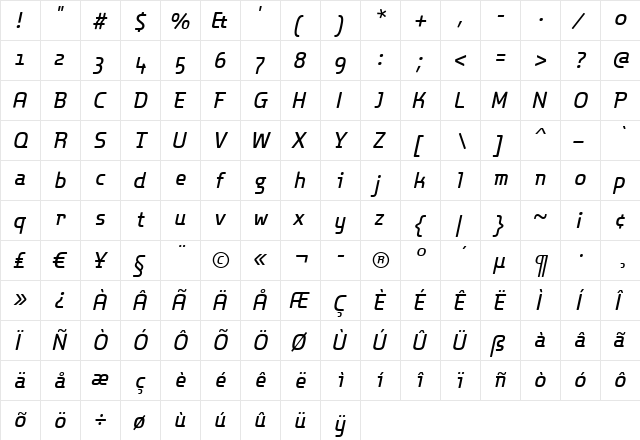
Dieselis-OneOblique Regular
Design Context for Dieselis-OneOblique Typeface
Dieselis-OneOblique takes a measured approach to typography — its balanced proportions and neutral character make it a reliable workhorse for both digital and print work. Its italic angle brings a sense of urgency and motion to the letterforms.
Pro Tip: Try Dieselis-OneOblique for annotation and caption copy alongside an upright companion — the contrast in angle creates a dynamic but ordered typographic system.